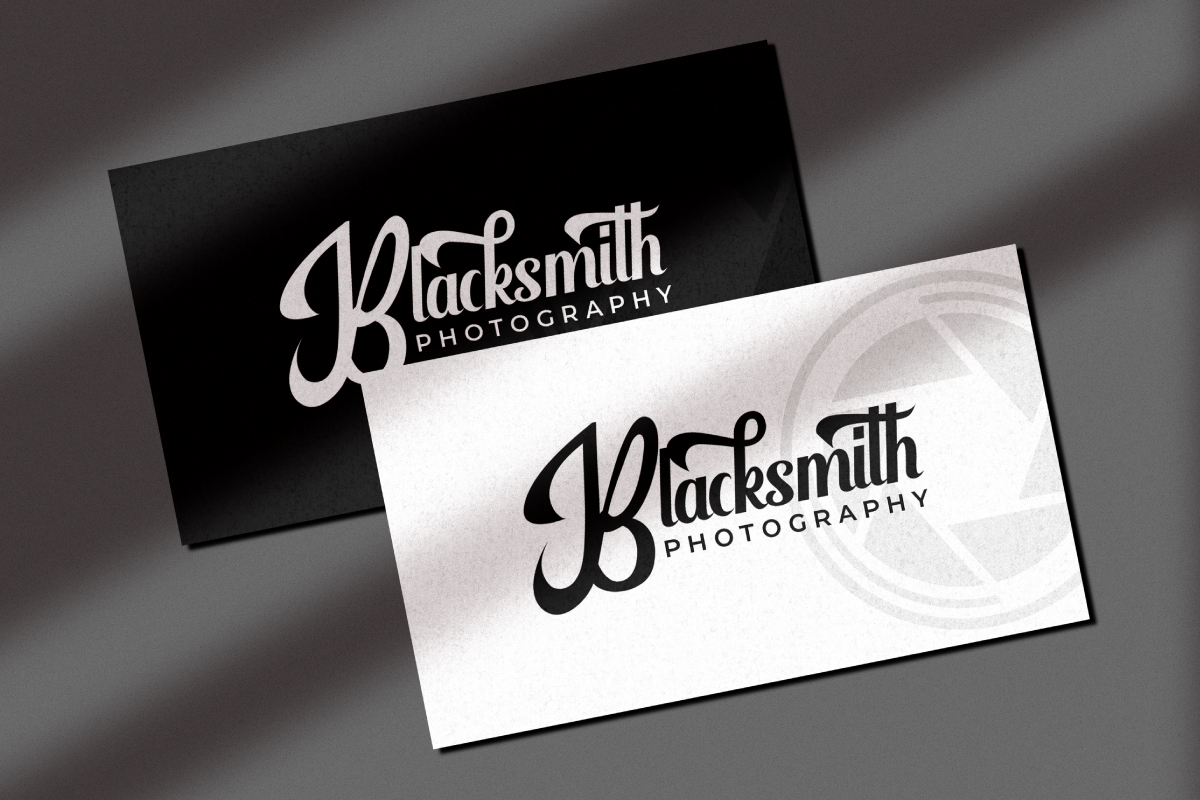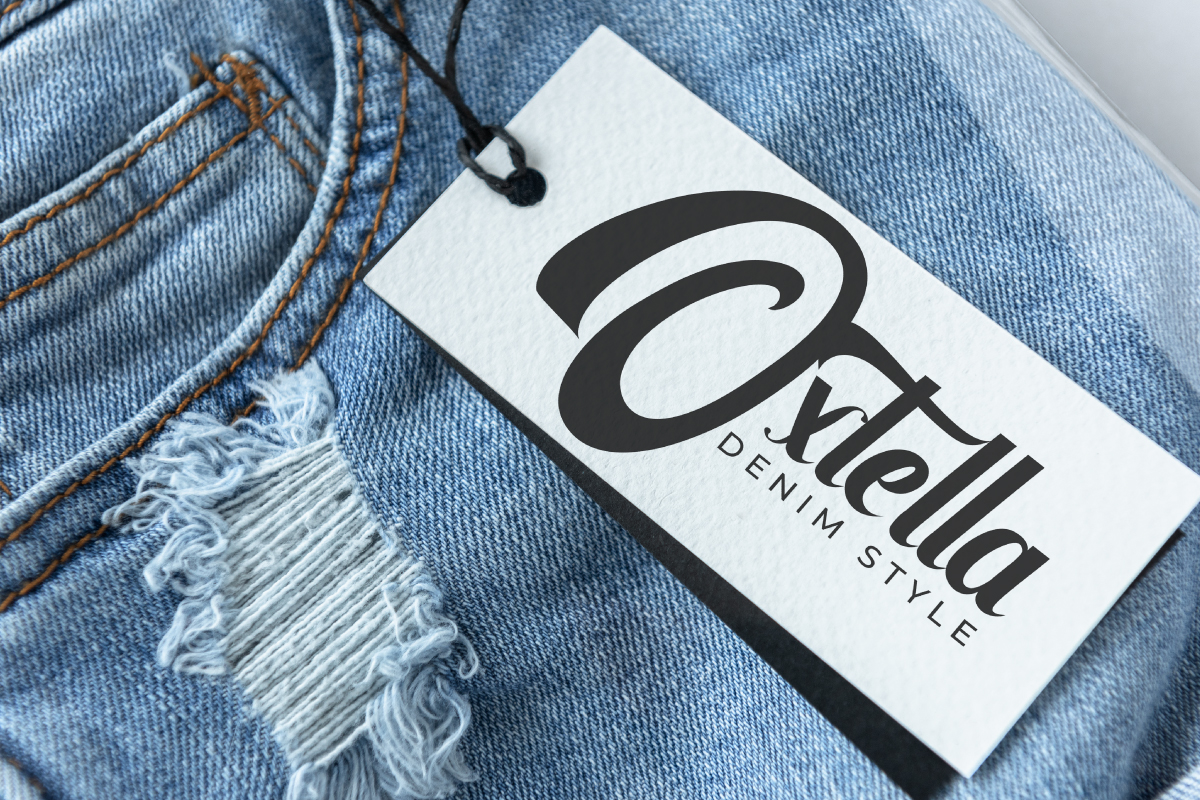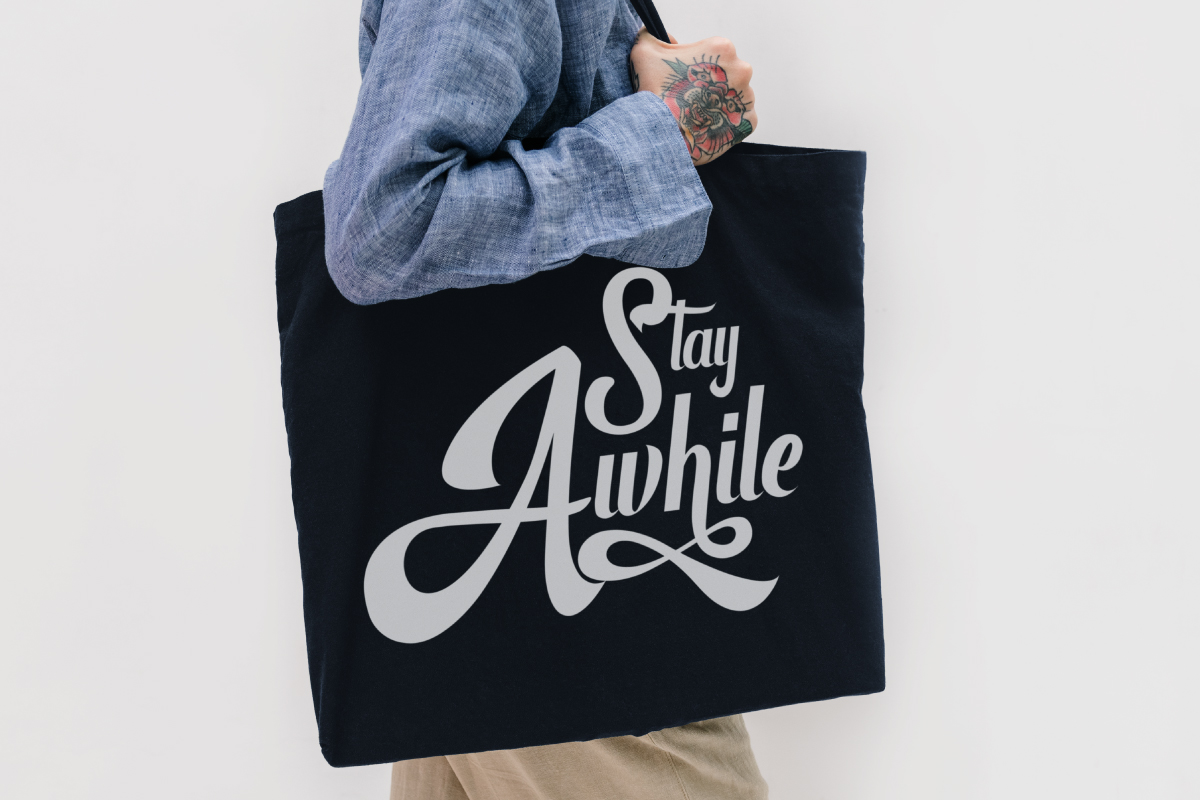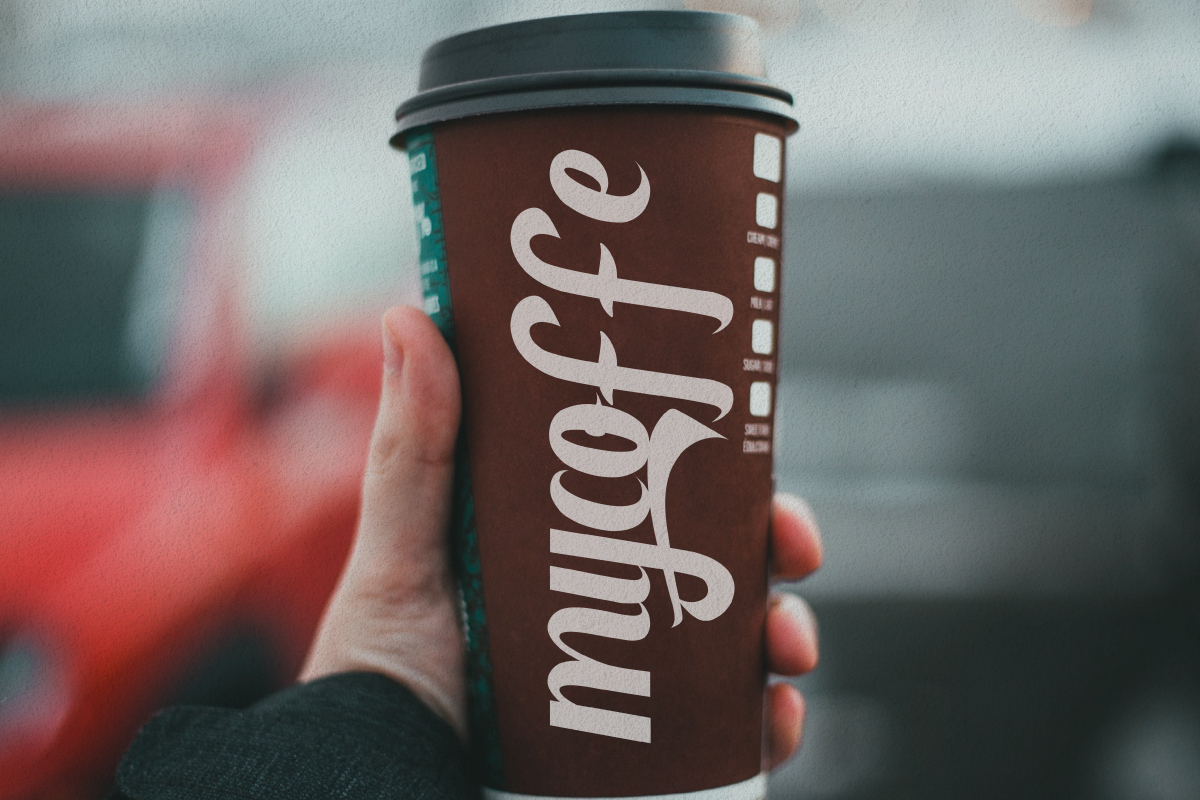
Grantsburg Font
Grantsburg Script Font
This is a script font with bold brush and groovy style. It has unique a flawless looks that are classic, retro, stylish, professional and sophisticated style. With commercial license, you can use it for logo brandings, product packaging, quotes, stationery and all designs needs.